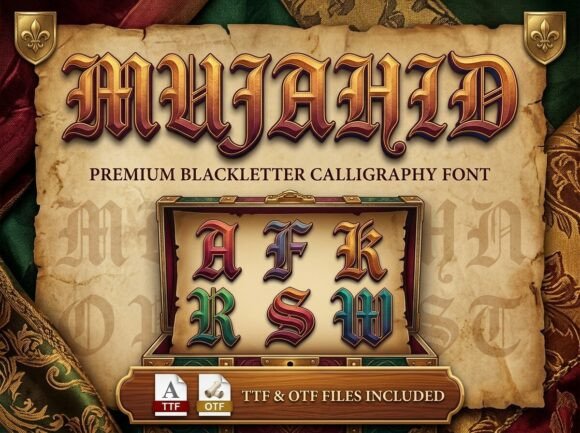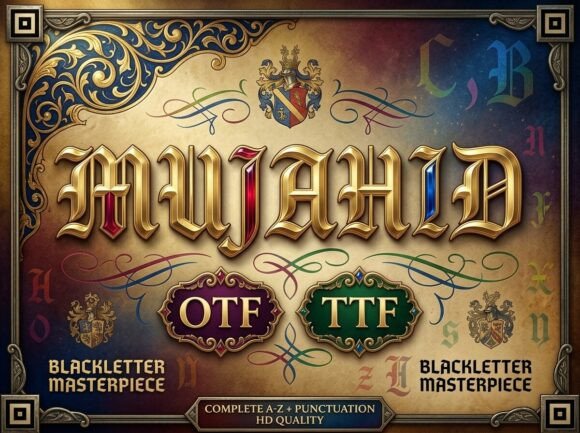
Introduction to Mujahid Font
Transport your audience to an era of manuscript mastery with Mujahid, a premium blackletter display font that redefines gothic elegance.
It is the definitive choice for cinematic titles, luxury historical branding, high-end spirit labeling, and majestic editorial headers .